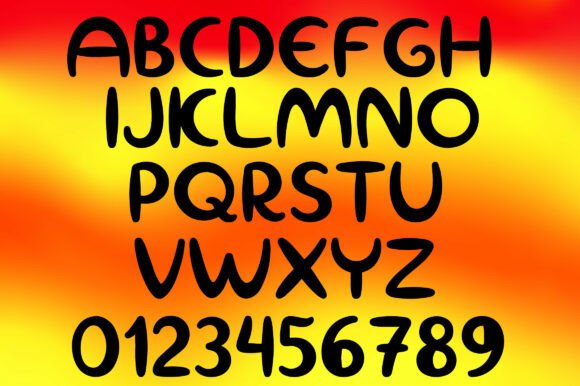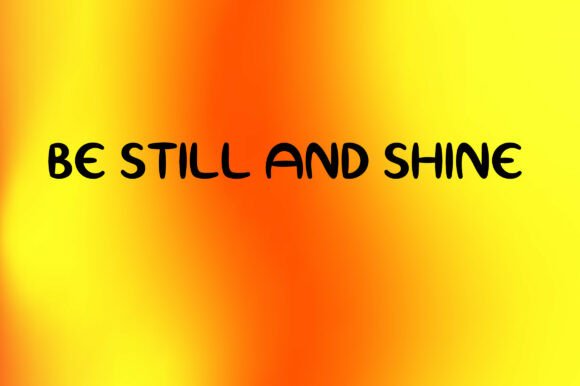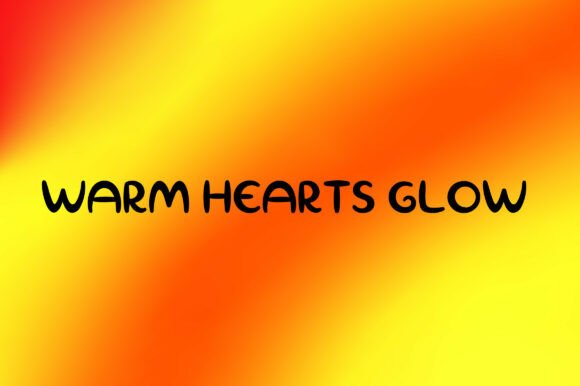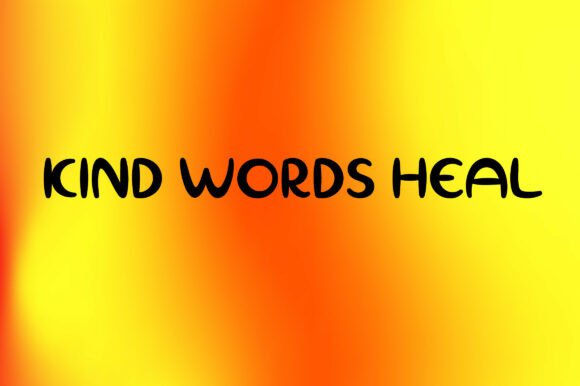
The Font that Brings Joy: A Deep Dive into Fiona Font
I’ll never forget the time I was working on a project for a children’s birthday party invitation. I had the design concept all sorted out, but I just couldn’t find the right font to bring it all together. The invitation needed to be fun, playful, and easy to read. That’s when I stumbled upon Fiona Font, and it was love at first sight! 💕
FIONA is a playful display font with a soft hand-drawn style and cheerful modern charm. Its uppercase letterforms feature rounded strokes, smooth curves, and a friendly balanced look that makes every word feel warm, fun, and easy to read. Designed with uppercase letters A–Z and numbers 0–9, FIONA is perfect for branding, posters, packaging, invitations, social media graphics, kids’ projects, and creative designs that need a cute, stylish, and eye-catching touch.
- ✅ Extremely easy to read, even at smaller sizes
- ✅ Perfect for kids’ projects, party invitations, and social media graphics
- ✅ Friendly and approachable feel that works well for branding and packaging
- ✅ Simple, yet stylish design that’s versatile and easy to pair with other fonts
- ⚠️ Limited to uppercase letters and numbers (no lowercase letters)
- ⚠️ May not be the best choice for very formal or professional designs
Fiona Font was designed with the intention of creating a friendly, approachable font that would bring joy to designers and readers alike. The designer wanted to create a font that was both playful and stylish, perfect for creative projects that needed a bit of whimsy. The result is a font that’s both modern and charming, with a unique personality that’s hard to find in other fonts.
Q: Is Fiona Font suitable for body text?
A: While Fiona Font is easy to read, it’s primarily designed for display purposes. For body text, you might want to choose a font with more legibility and a simpler design.
Q: Does Fiona Font have any special features?
A: Yes, Fiona Font has OpenType features, including stylistic alternates and glyphs. These features allow you to add variation to your text, making it more visually interesting.